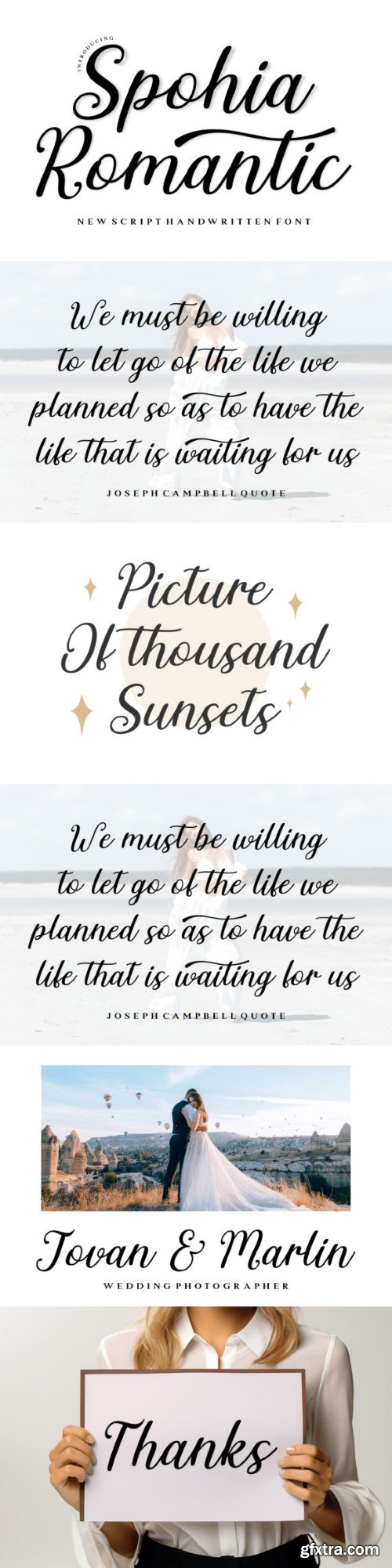
索菲亚浪漫字体
Spohia Romantic is a lovely handwritten font that adds a touch of warmth to your words. With its charming and gentle strokes, this font exudes a romantic vibe, making it perfect for expressing love and tenderness. Whether you’re creating invitations, heartfelt messages, or any project that calls for a sweet and personal touch, Spohia Romantic brings an elegant and affectionate feel to your typography. Say it with style and simplicity using this delightful handcrafted font.